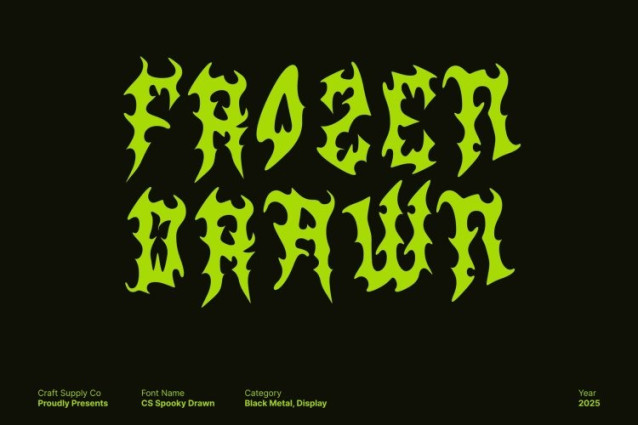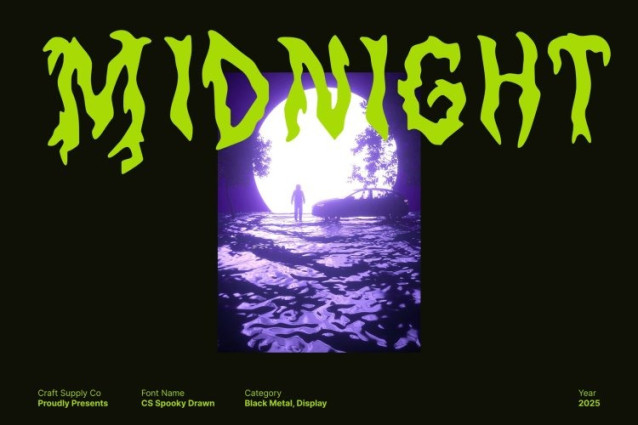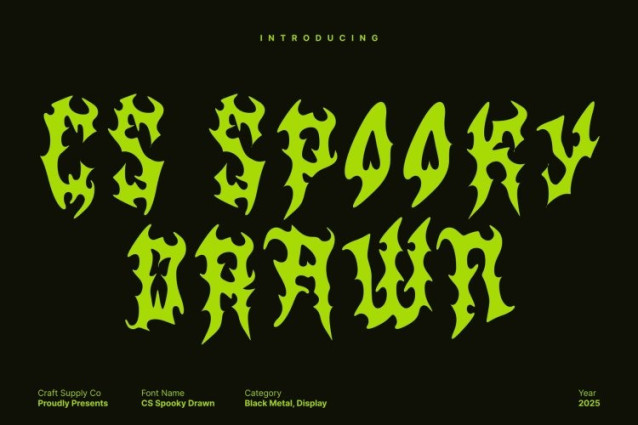
CS Spooky Drawn Font
CS Spooky Drawn Font This is a brutal and electrifying death metal display font built to deliver intense visual power. Its sharp, jagged letterforms and chaotic, dynamic strokes channel the raw aggression of underground metal culture. Every curve and spike is crafted to look wild, fierce, and unapologetically rebellious, making the font impossible to ignore.
Hand-Drawn Texture for Authentic Metal Attitude
Infused with a rough hand-drawn effect, this font gains added grit and personality. The imperfect, textured strokes enhance its chaotic aesthetic, giving each character an authentic, handcrafted intensity that mirrors the rawness of real death metal visuals. This drawn detail makes the typeface feel alive, energetic, and truly unique.
Perfect for Bands, Albums, Merch, and Extreme Branding
Designed for bold, edgy applications, shines in band logos, album covers, gig posters, merchandise, horror themes, and extreme branding projects. Its violent shapes and raw texture immediately set the tone, making any design feel darker, louder, and more intense.
A Bold Typeface That Commands Attention
This font combines the unapologetic aggression of death metal typography with the expressive charm of hand-drawn texture. The result is a typeface that radiates power, attitude, and rebellion perfect for designers who want their work to hit with maximum impact and unforgettable style.